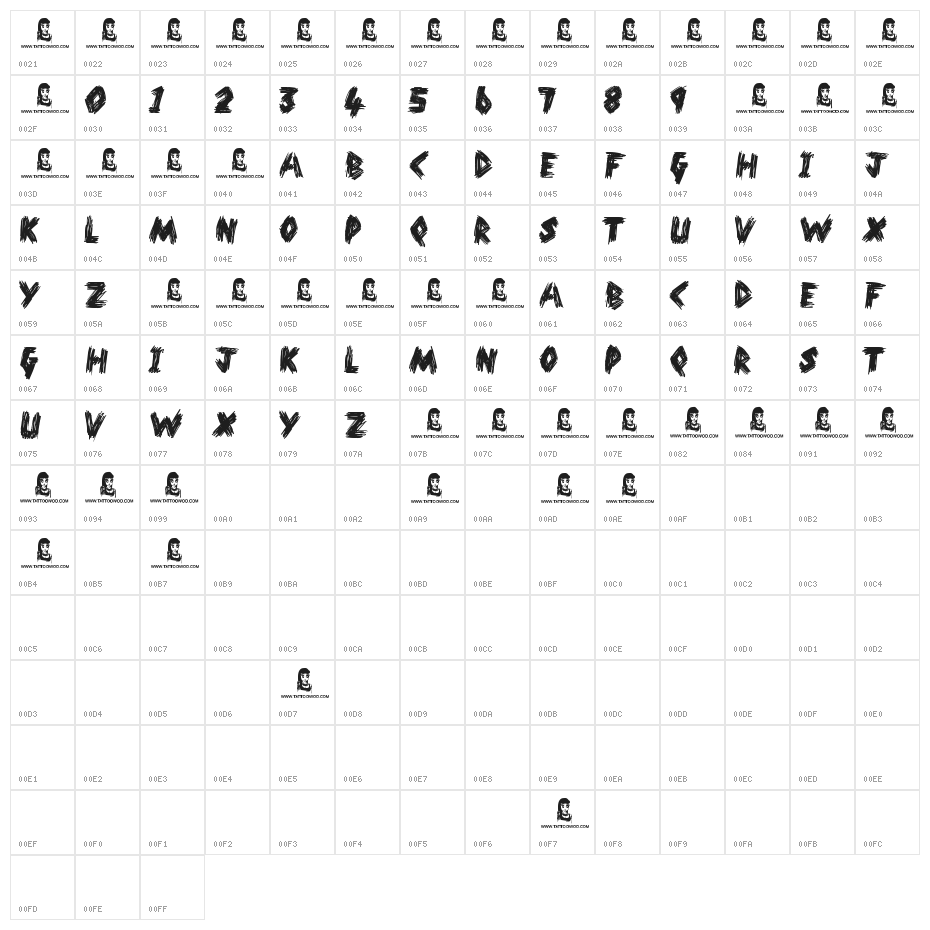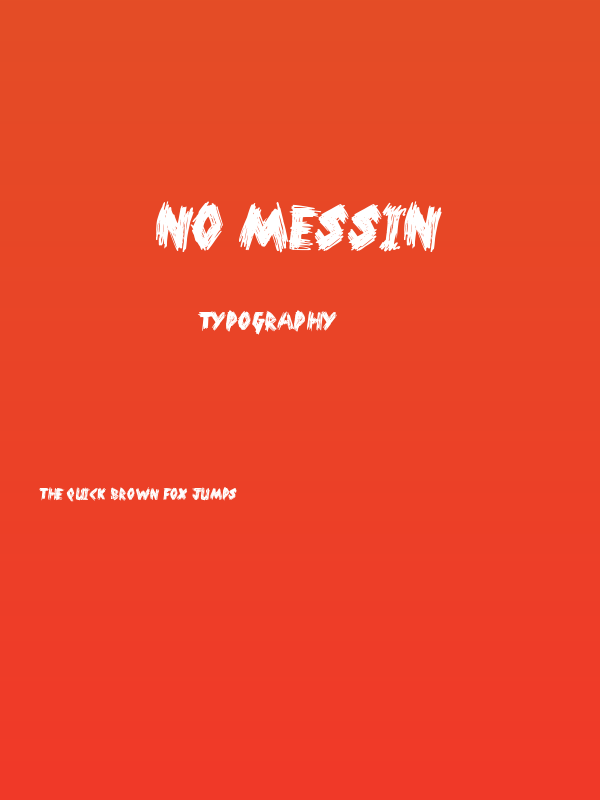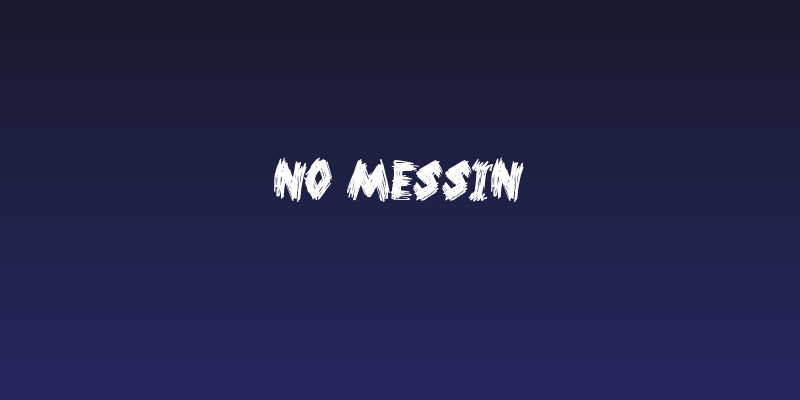
No Messin Font
No Messin Description
This font features a bold, hand-drawn style with a rough, textured appearance. The strokes are uneven and jagged, giving it an energetic and rebellious look. Each character is unique, with varying thickness and a sense of movement, as if sketched with a marker or brush. The uppercase and lowercase letters maintain a consistent style, while the numbers and special characters blend seamlessly into the overall design. This font exudes a raw, edgy vibe, perfect for making a strong visual impact.
| Overall Style | Modern, Edgy |
| Use Case | Headlines, Posters, Branding |
| Proposed Projects | Ideal for music album covers, graffiti art, streetwear branding, or any project requiring a bold, edgy statement. |